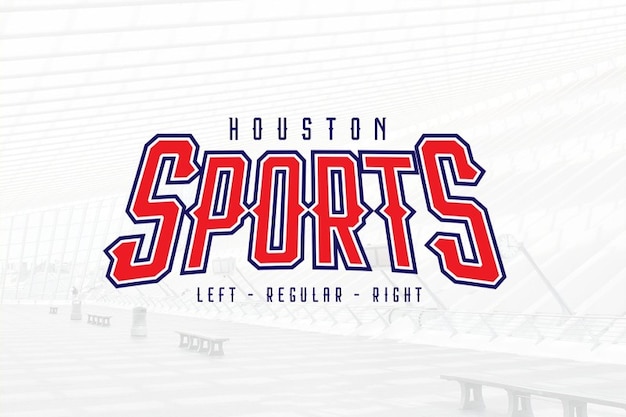
Houston Sport Font
It is a font that embodies the competitive spirit of sports, making it the ideal choice for logos and gaming designs. Its bold, dynamic lettering radiates energy and excitement, capturing the essence of the game. Whether you're creating team logos or designing gaming graphics, "Houston Sport" brings the winning spirit to your projects, making it a top pick for sports enthusiasts and gamers alike.